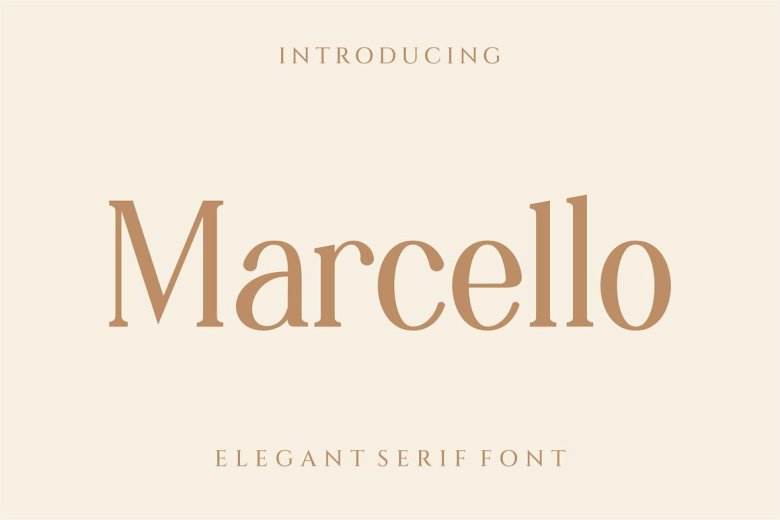
Marcello Font
Marcello is an elegant and graceful serif font. This font feels and looks both contemporary and nostalgic. It is ideal for logos, magazine, social media. This package already includes two sets of combinations, leaving your design works perfectly together! The This font was designed just for you, whether your needs include a bit of fashionably contemporary elegance and chic style coupled with European grace, or are relatively understated gains that blend in well with their environment.
Marcello was designed with OpenType features and has ligatures, numbers, punctuation, plus it supports other languages.
Marcello Serif Font